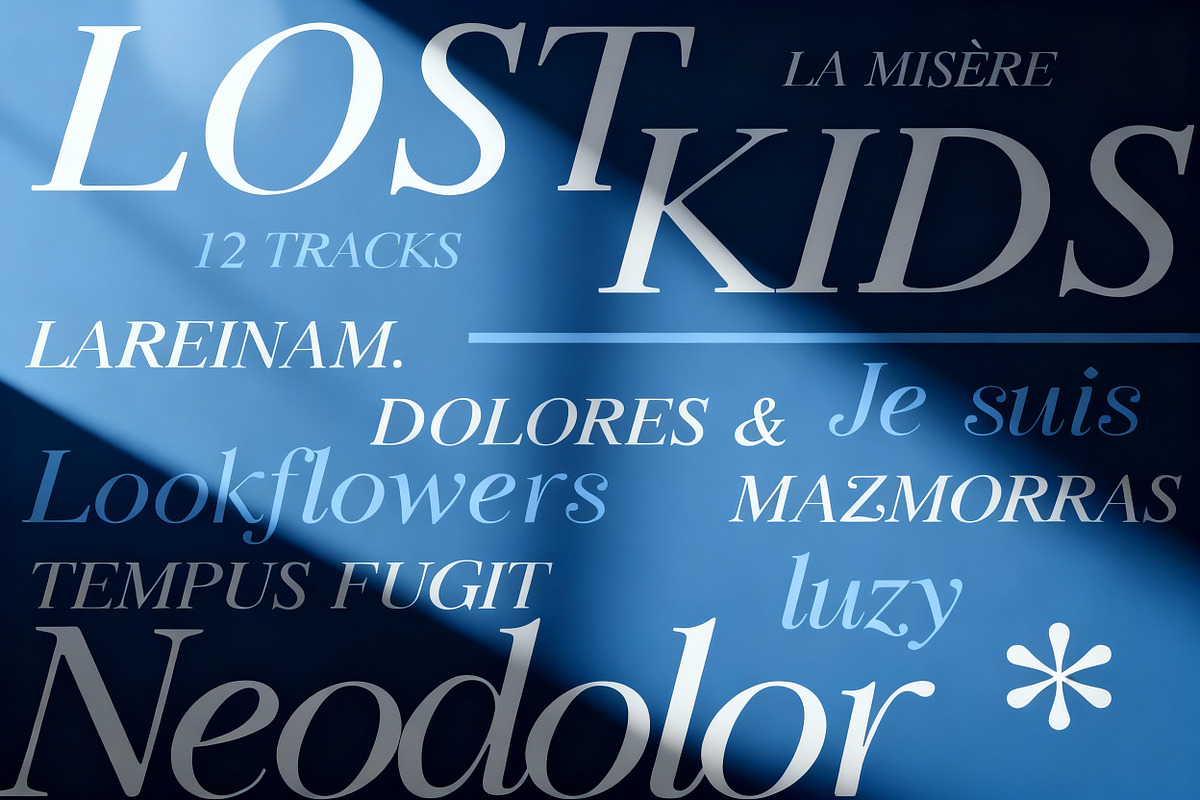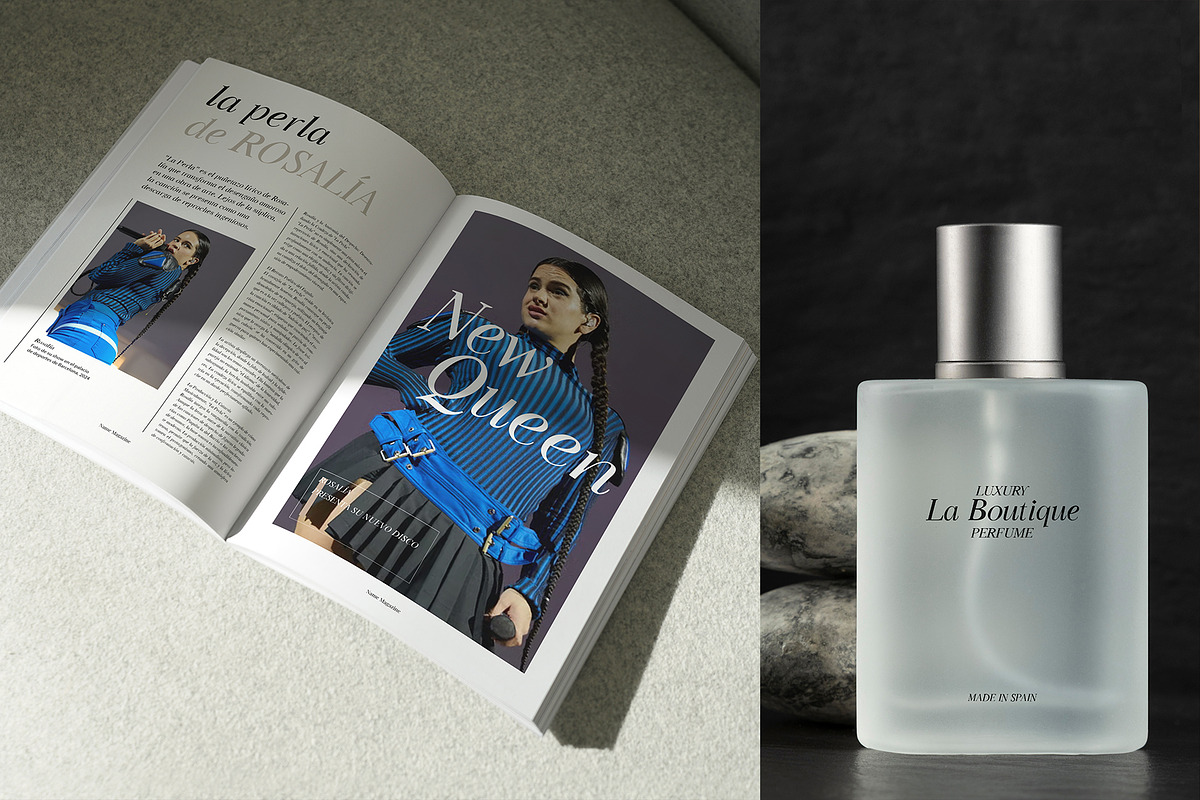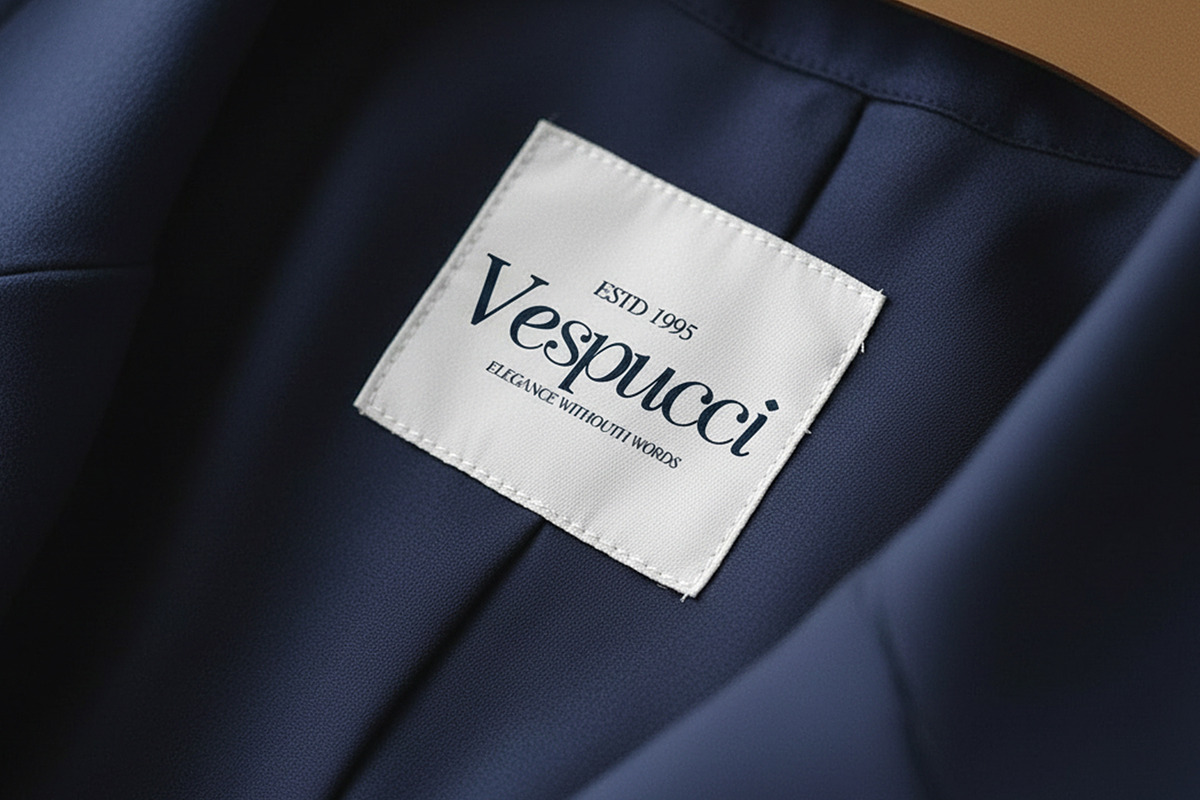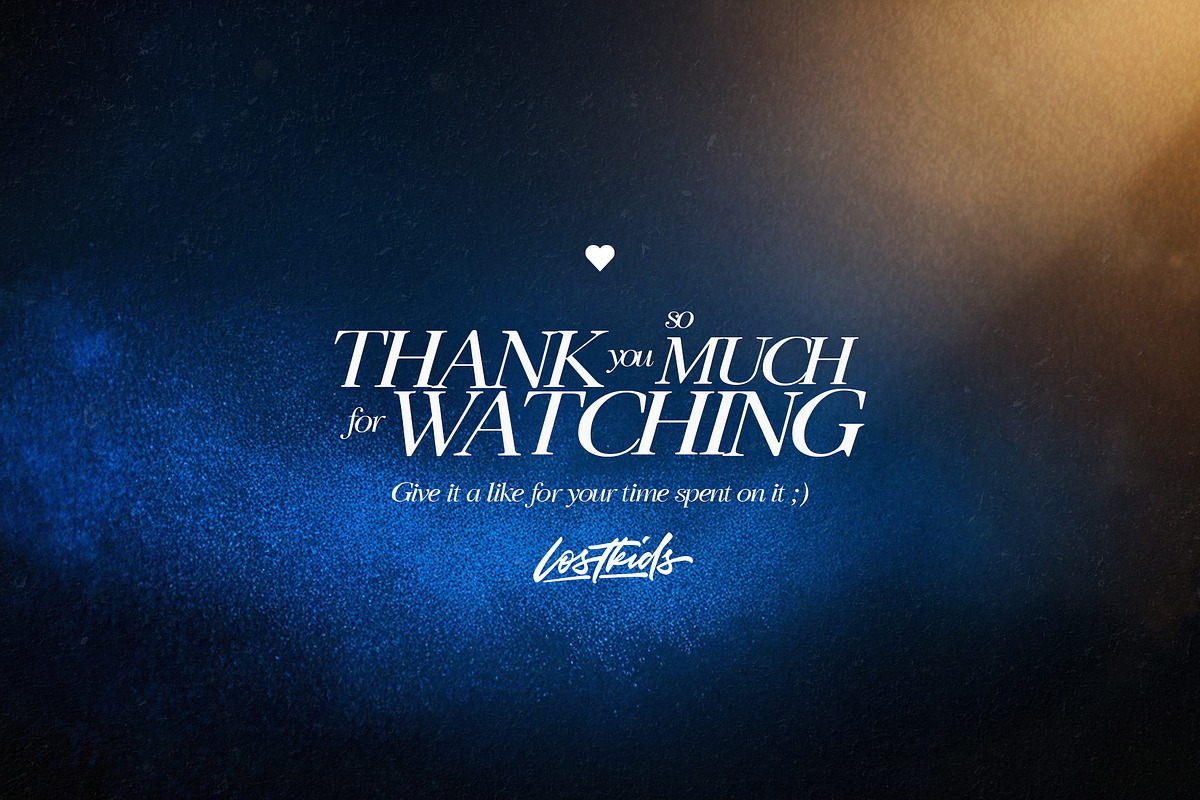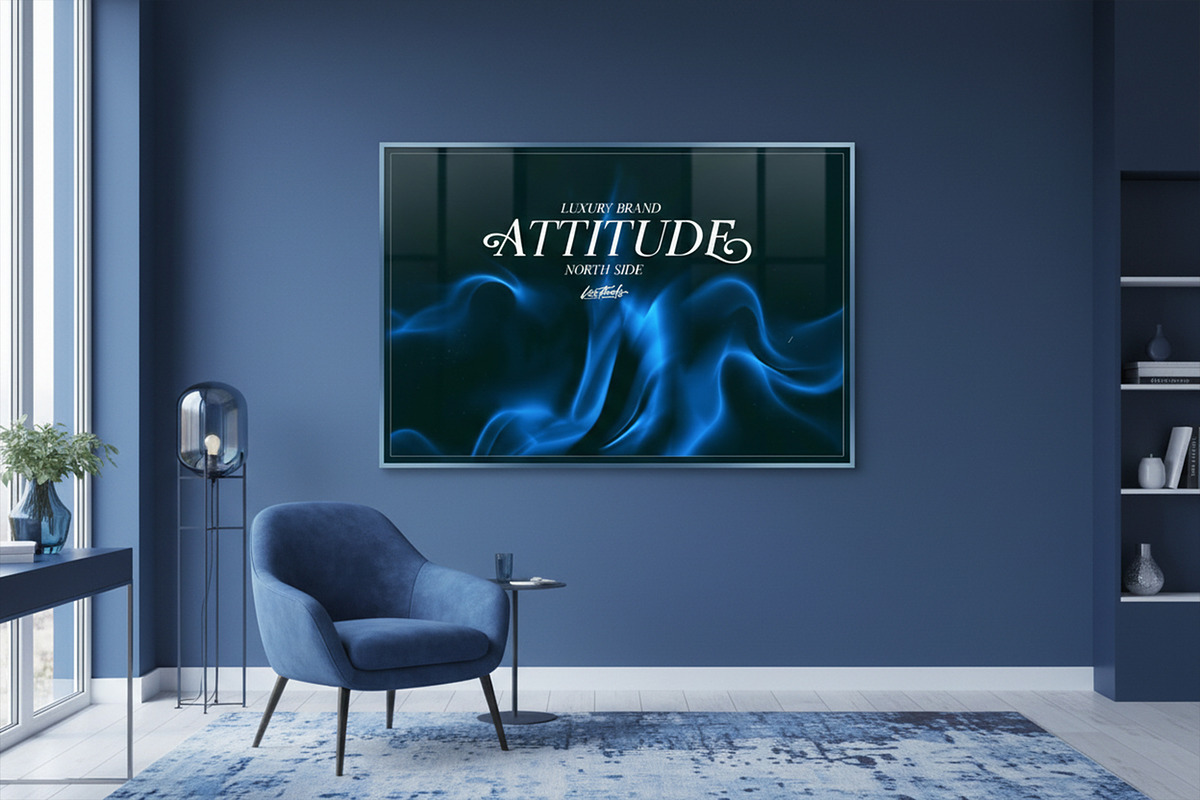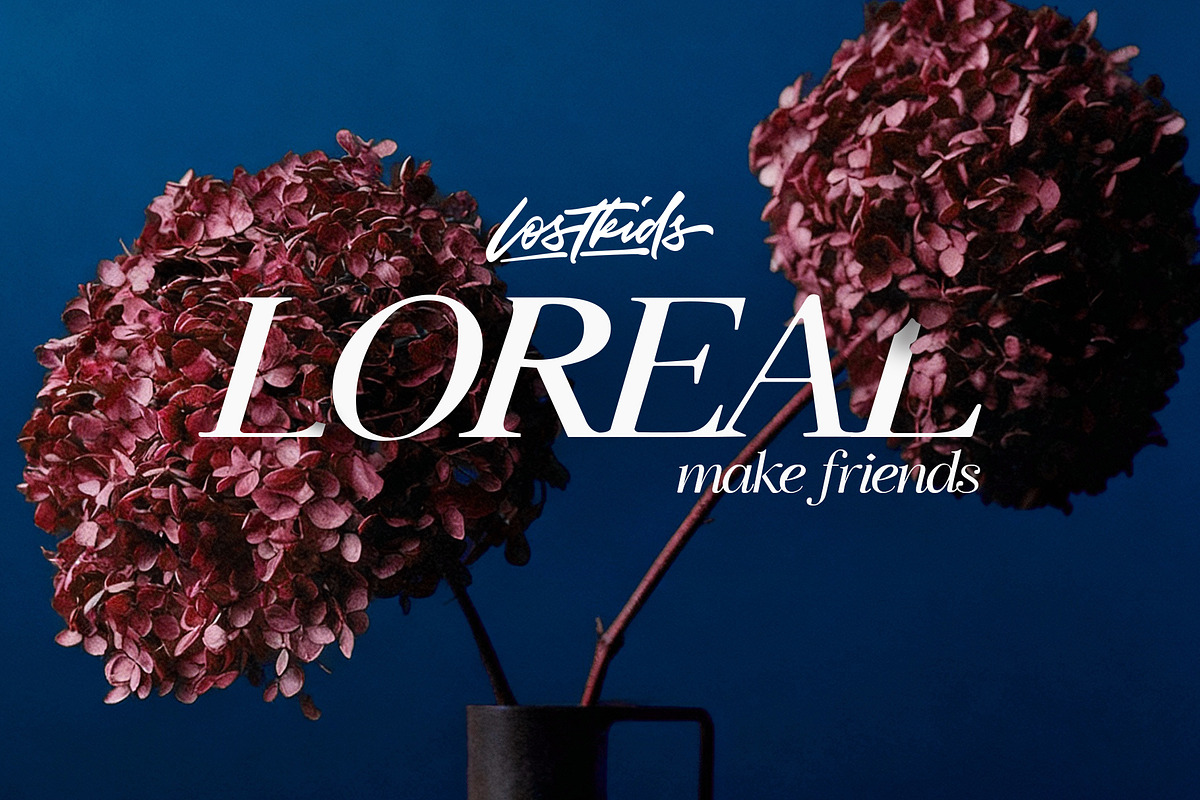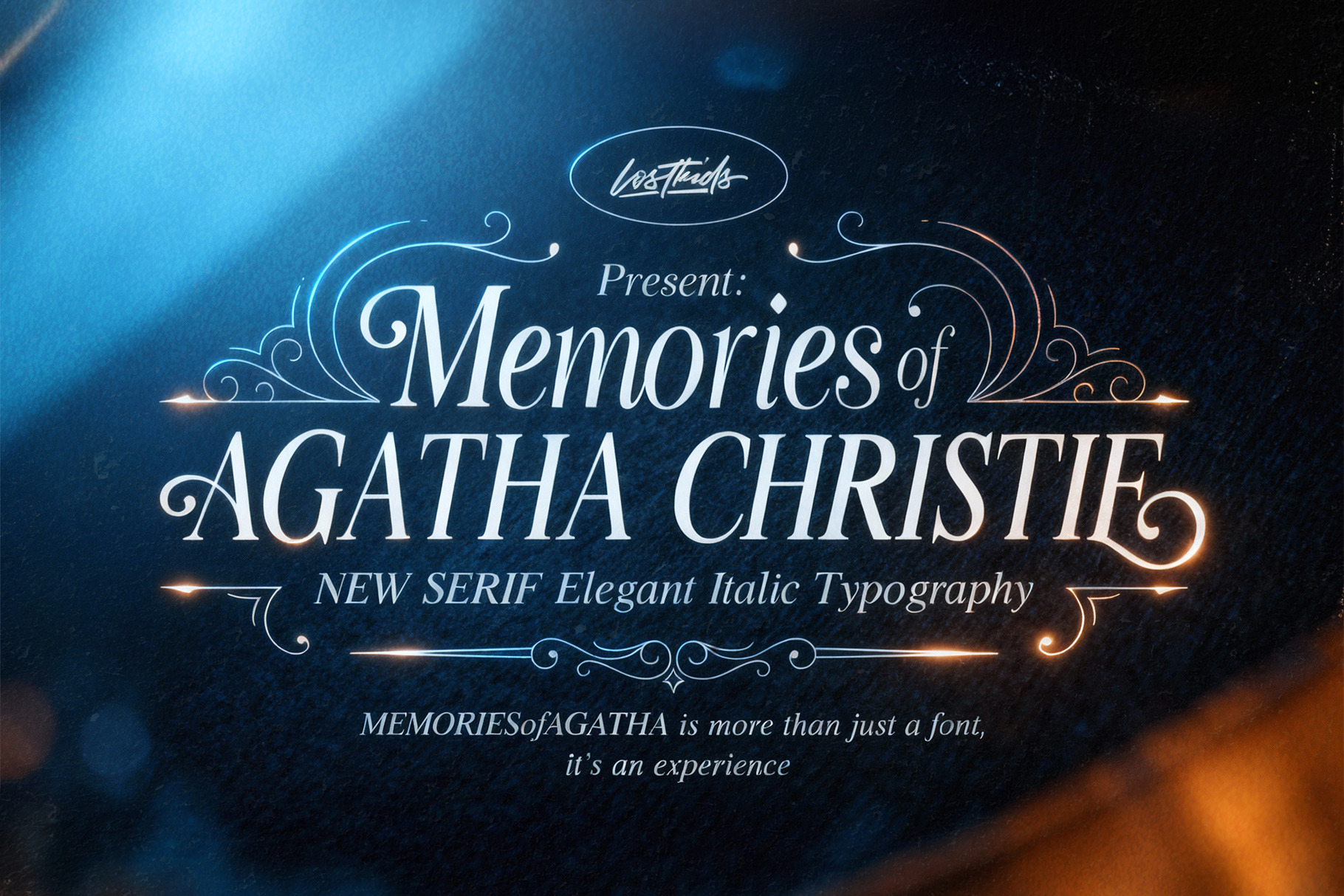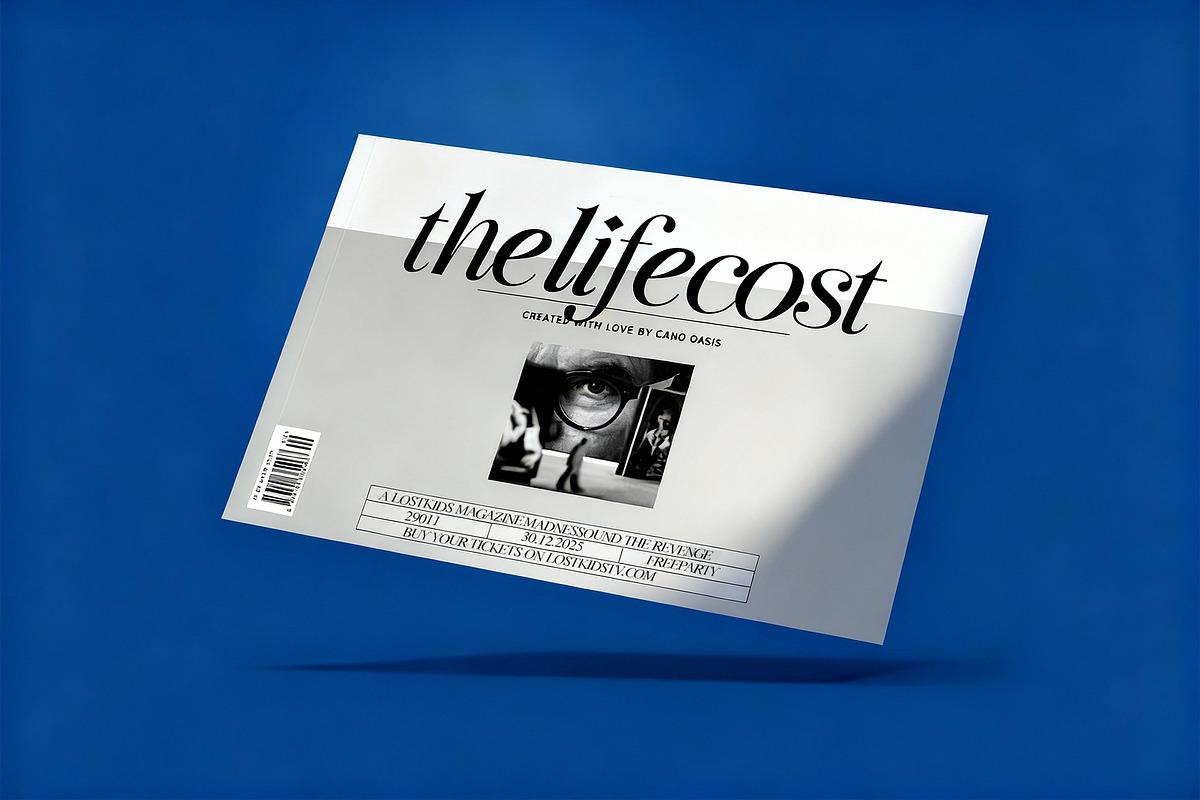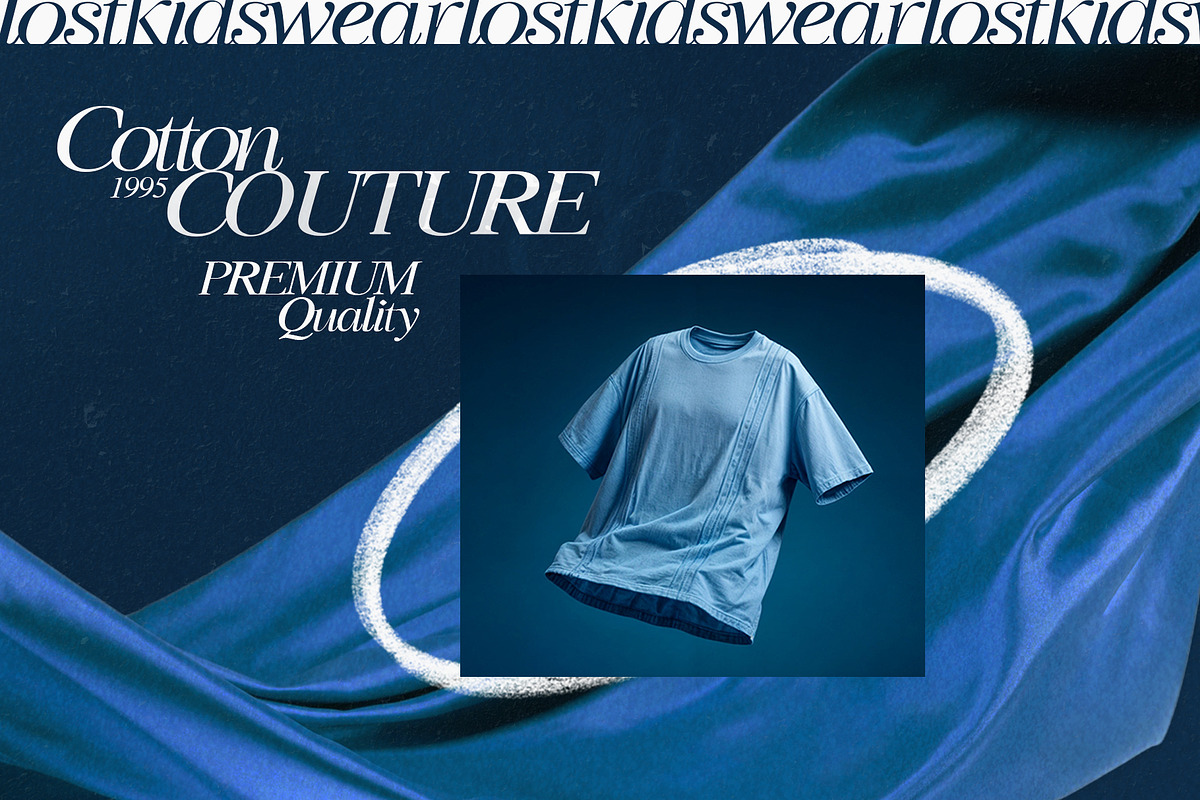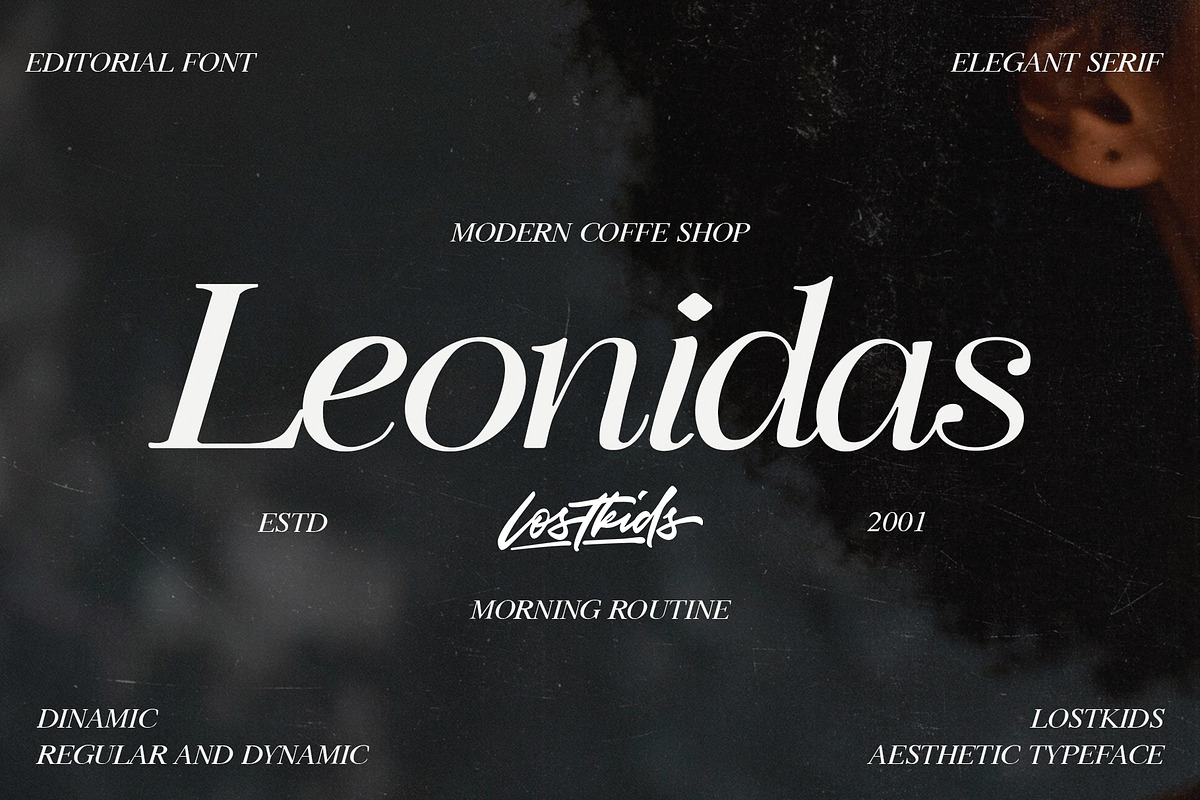
FONT - Memories of Agatha Christie
Memories of Agatha Christie: The New Elegant Italic Serif Typeface Headline: Luxury, Editorial, and Fashion Typography: The Essential Elegant Serif Font for High-End Branding.
Are you ready to elevate your design projects with a typeface that speaks volumes of sophistication, heritage, and timeless elegance?
Introducing Memories of Agatha Christie, a stunning and exclusive Serif Italic Font designed for the visionary creator. This isn't just a font; it's a powerful branding tool crafted to capture attention and infuse your work with a premium, high-fashion aesthetic.
We meticulously focused on the italic version to deliver a dynamic, flowing, and unique rhythm, ensuring your headlines, logos, and editorial layouts possess an irresistible visual movement that regular fonts cannot replicate.
🔑 Why Memories of Agatha Christie is a Must-Have: Exclusive Italic Design: Forget standard italics. This font was conceived and executed as an exceptional italic-only typeface, offering a singular, sweeping elegance perfect for titles, mastheads, and high-impact quotes.
The Power of Elegance: The sophisticated serifs and fluid, sweeping curves evoke the golden age of literature and luxury, making it ideal for fashion brands, bespoke products, fine dining, and upscale publishing.
Versatile Luxury: While its heart is in high fashion and luxury, its clarity and distinction shine in areas like product packaging, magazine layouts, book covers, wedding invitations, and distinctive corporate branding.
Don't settle for the commonplace. If your goal is to convey premium quality, timeless style, and impeccable taste, Memories of Agatha Christie is the essential italic serif typeface missing from your collection.